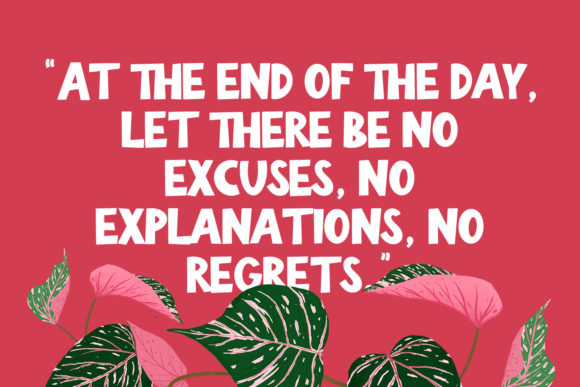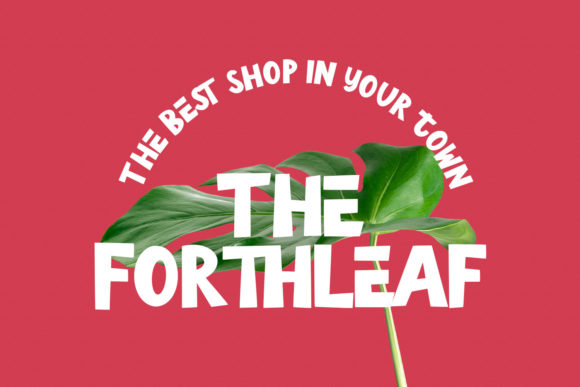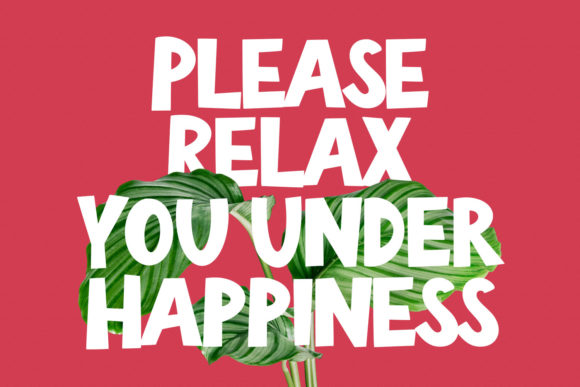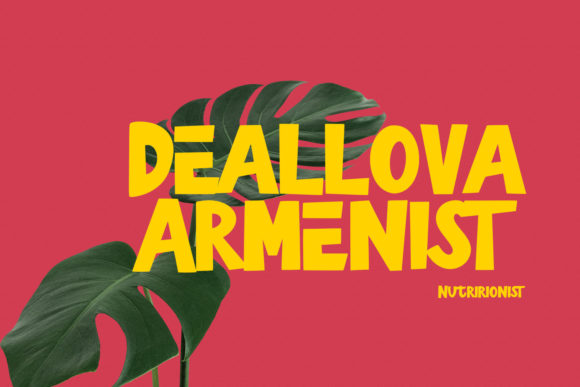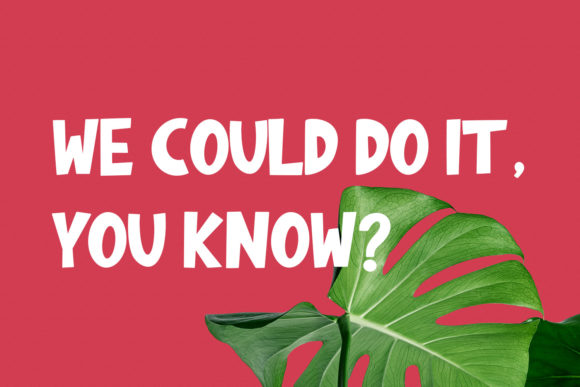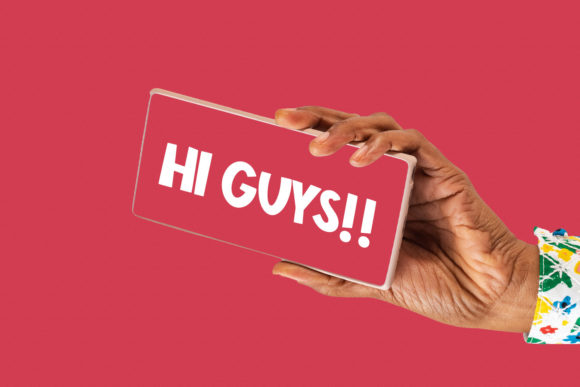
Introduction to Fortyfresh Font
Fortyfresh is a playful and fun display font.
It embodies playfulness and authenticity and is the perfect choice for any children activity or school project .
Key Features of Fortyfresh Font
Why Choose Fortyfresh Font?